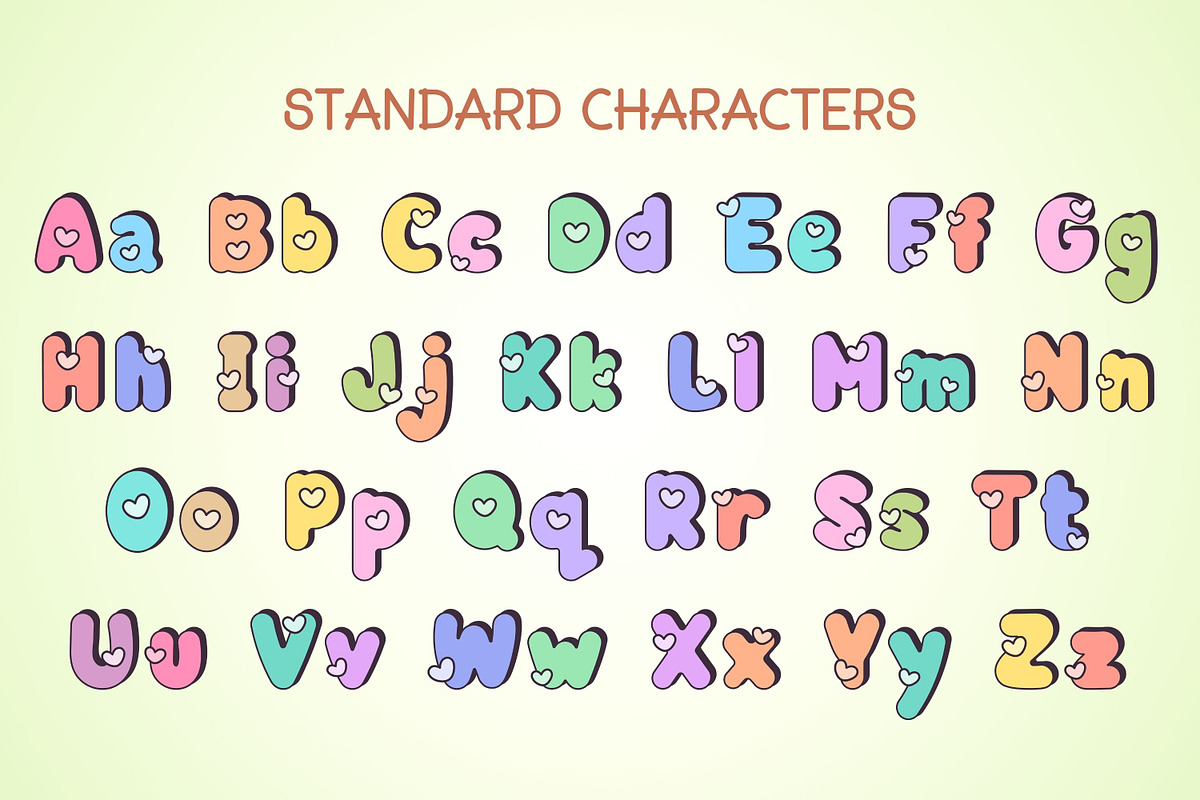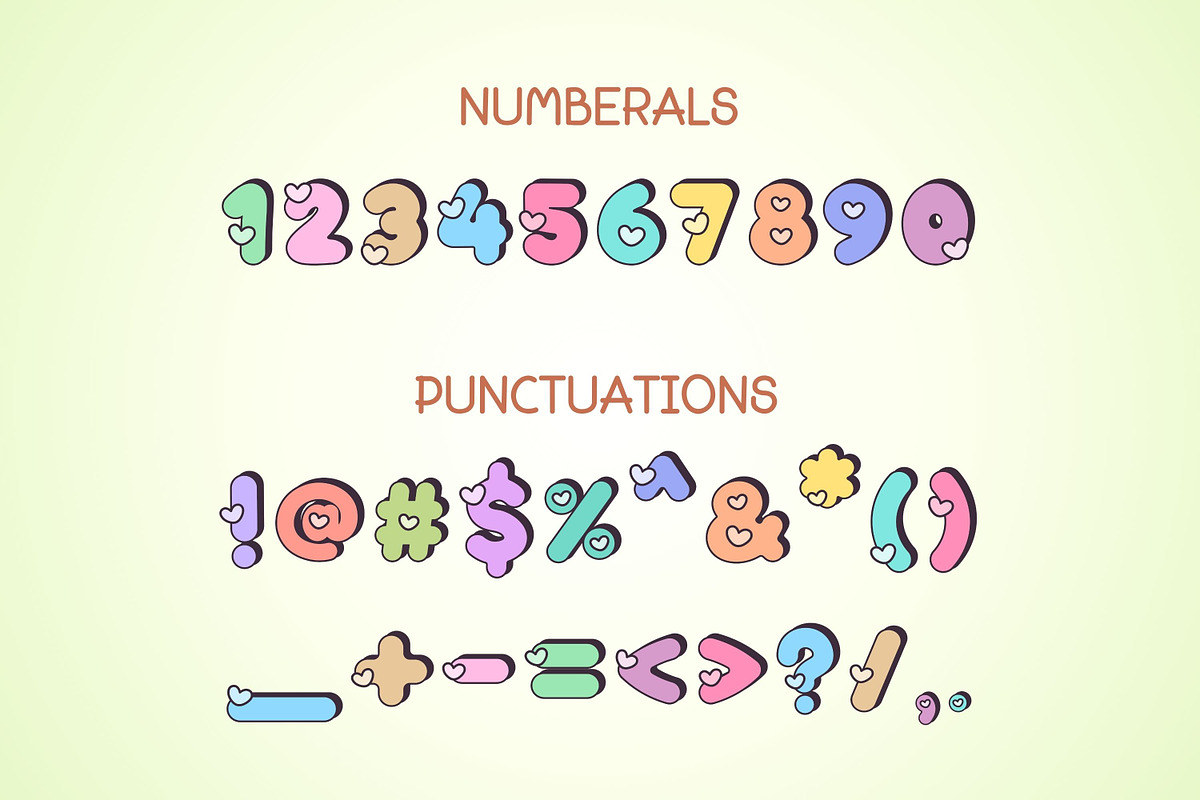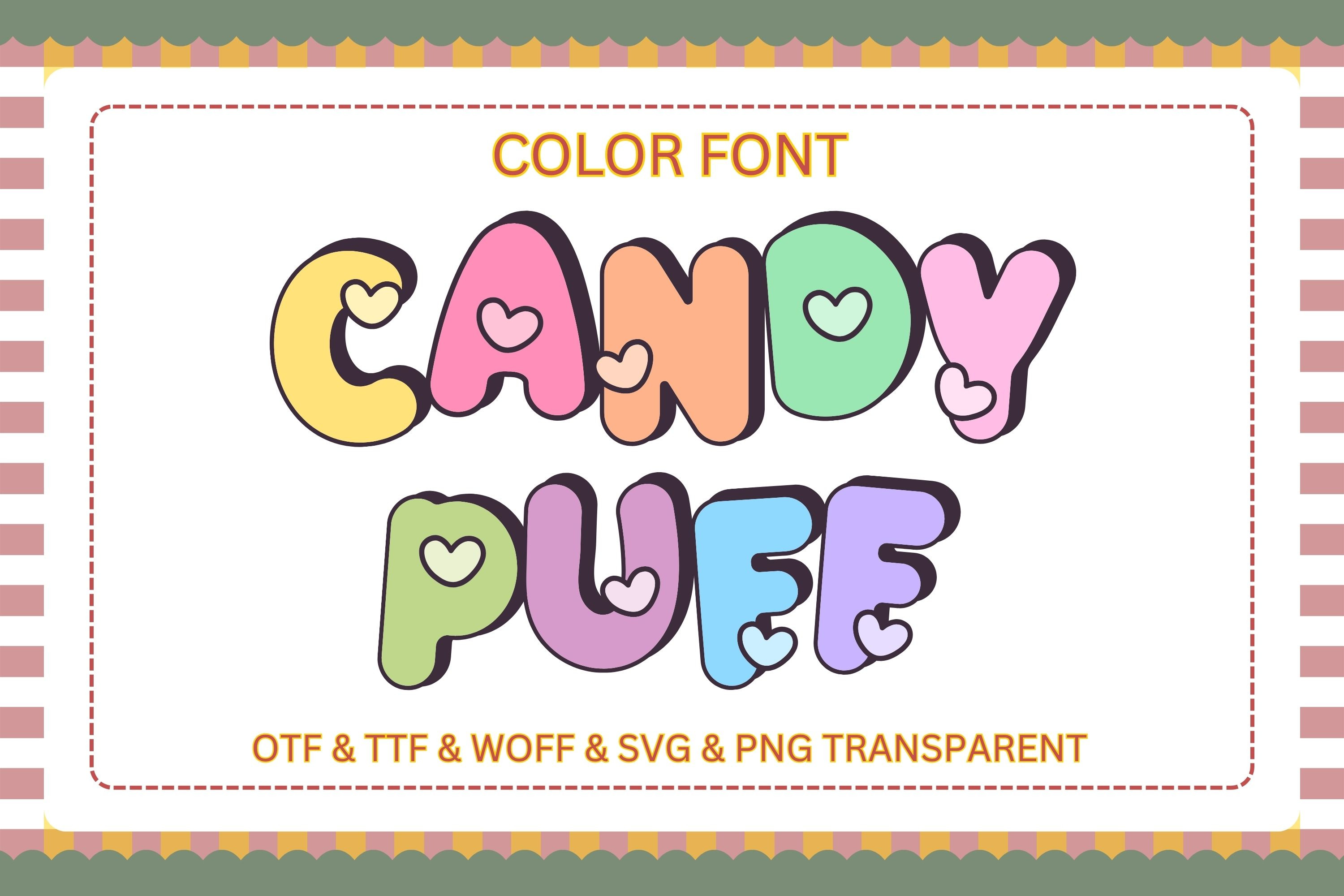
Candy Puff - Color Font
Candy Puff is a playful and adorable color font featuring soft pastel colors, chunky bubble letters, and charming heart accents inside every character. Designed with a sweet kawaii aesthetic, this font is perfect for creating eye-catching designs for birthdays, baby showers, Valentine’s Day, stickers, invitations, planners, scrapbooks, social media graphics, and printable crafts.
The font includes uppercase and lowercase letters, numbers, and punctuation, making it versatile for both personal and commercial creative projects. With multiple file formats included, Candy Puff is easy to use across popular design software such as Canva, Cricut Design Space, Silhouette Studio, Adobe Illustrator, Photoshop, and more.